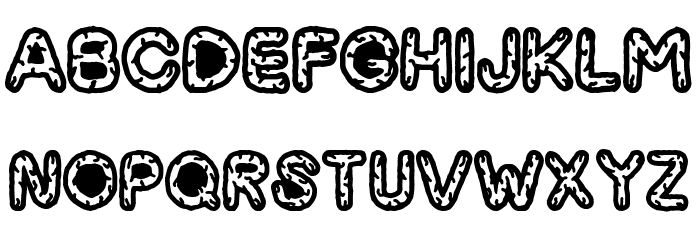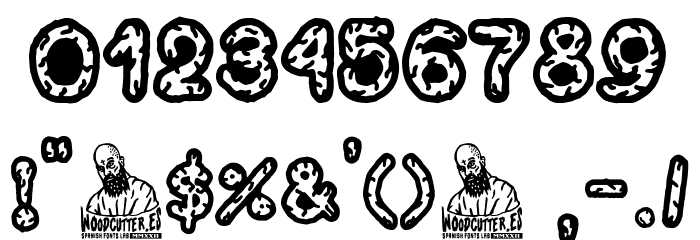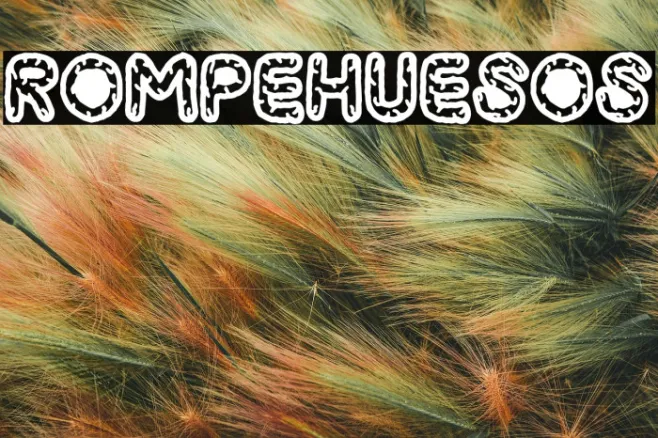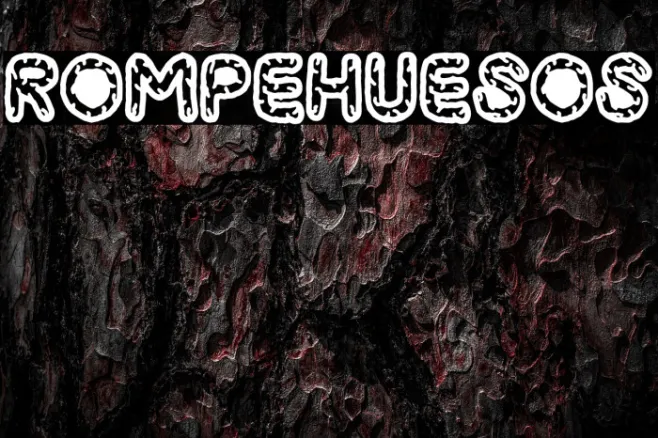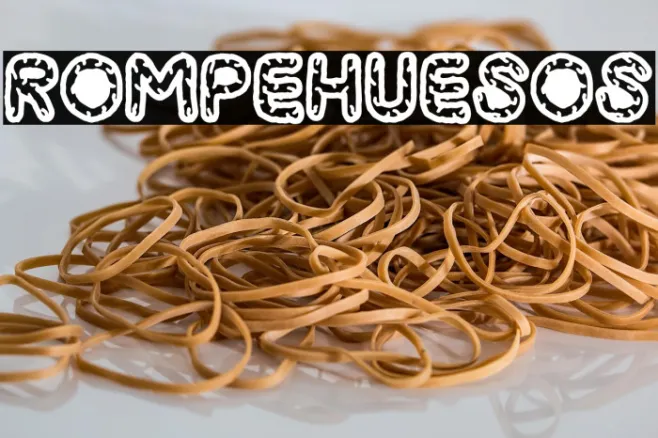
Rompehuesos Font
This font features a bold and rugged design, characterized by its irregular, jagged edges and distressed appearance. The letters have a hand-drawn quality, with uneven strokes that give them a rough, textured look. The style is reminiscent of graffiti or street art, with a playful yet edgy vibe. The uppercase and lowercase letters maintain a consistent style, while the numbers and special characters complement the overall aesthetic. This font is ideal for projects that require a bold statement, adding a touch of rebelliousness and creativity.
A bold, rugged font with a distressed, hand-drawn appearance.
- Proposed Projects: Perfect for posters, album covers, streetwear branding, and edgy graphic designs.